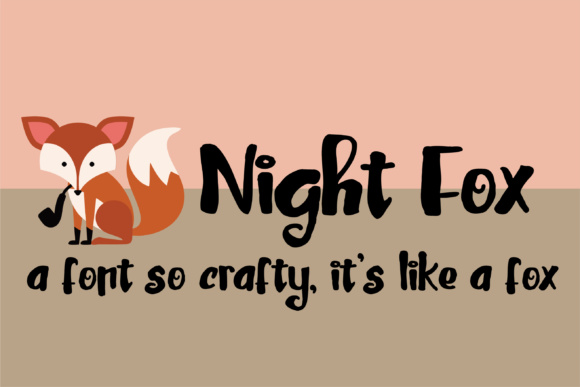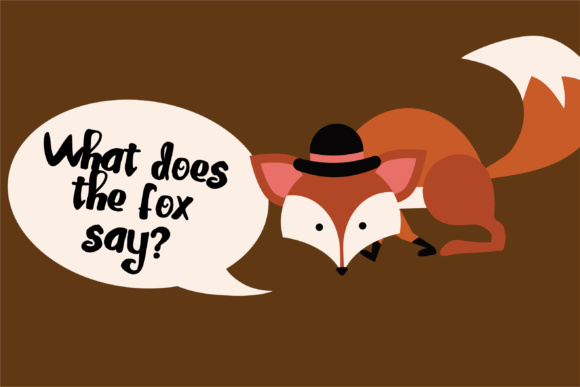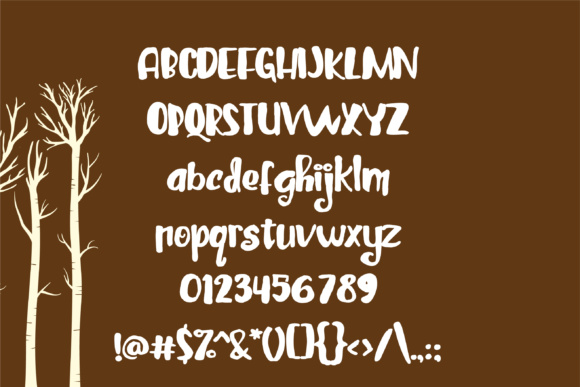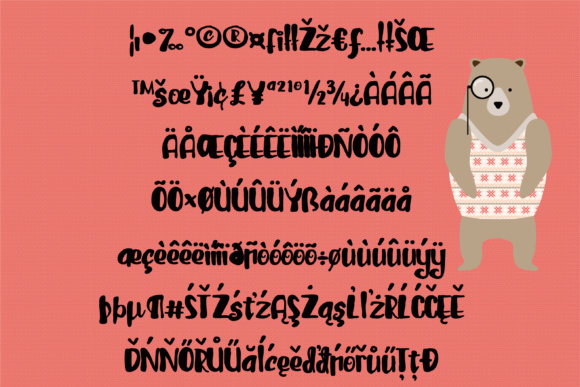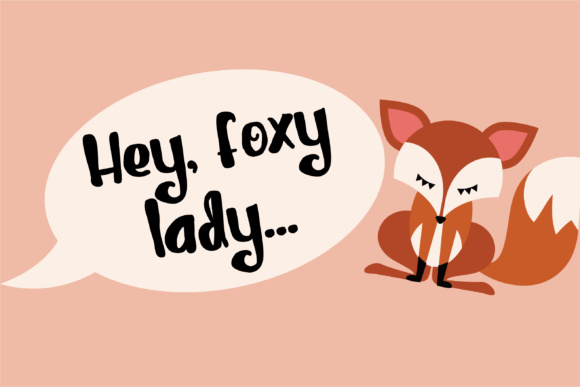
HomeScript FontsNight Fox Font Script Fonts Night Fox Font FacebookXPinterestWhatsApp Night Fox Font Poster 2 Night Fox Font Poster 3 Night Fox Font Poster 4 Night Fox Font Poster 5 About Night Fox Font This fun hand-written font has a nice mix of thick and thin lines. DOWNLOAD NOW People also explored Amethyst Font Sinister Font Andalan Font Kasandra Script Chelsy Font Little Blome Font Authentic Font Glamkilla Font Madarak Font 312 0 TagsNight Fox Font Previous articleClassical FontNext articleLa Maison Script Font LEAVE A REPLY Cancel reply Comment: Please enter your comment! Name:* Please enter your name here Email:* You have entered an incorrect email address! Please enter your email address here Website: Save my name, email, and website in this browser for the next time I comment. Personal Use Free Relic Island 2 Personal Use Free Read more about this font Alista Font Personal Use Free Read more about this font Bestlife Personal Use Free Read more about this font Persephone Free Personal Use Free Read more about this font BLOG Using Fonts in Digital Marketing: Tips to Strengthen Your Brand Identity In the realm of digital marketing, every visual element plays a crucial role in shaping a brand's identity, and fonts are no exception. The... 5 Fonts That Will Dominate Design Trends in 2026 The 10 Best Handwriting Fonts to Add Personality to Your Designs Transform Your Website: Elevate Your Typography with 7 Best Web Font Generators